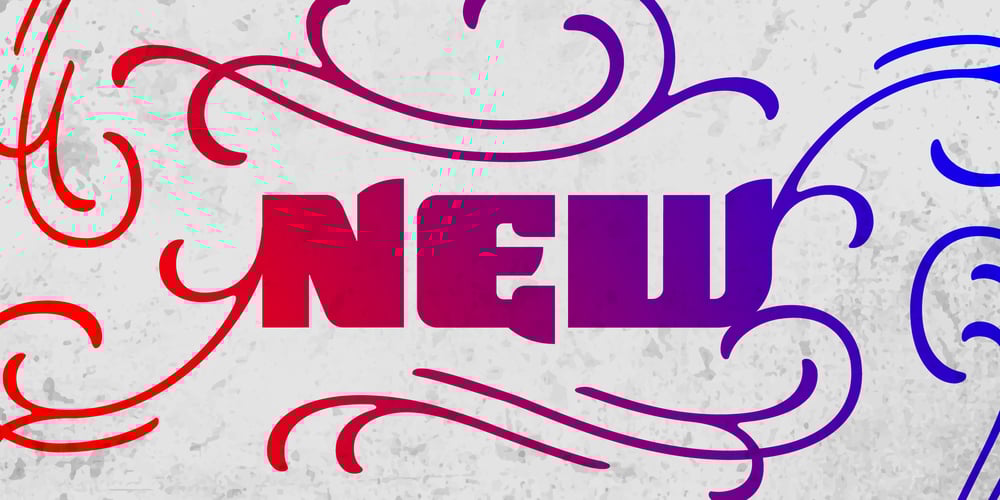
Voyeur Font Family was designed by Alejandro Paul, Angel Koziupa and published by Sudtipos. Voyeur contains 1 styles and family package options. Since you like to look, Angel Koziupa and Alejandro Paul bring you Voyeur, an entirely different direction from their usual collaborations. This typeface attracts two opposite design theories by mixing bold and blocky modernism with delicate ornamentals. The unlikely mix is not haphazard, however. It is calculated with an alchemist’s (or voyeur’s) attention to detail. This font includes many, many different ornamental treatments, each adjusted specifically for its letter form counterpart. Open your glyph palette to find plenty more variation and alternative combinations. For everyone’s eyes only.